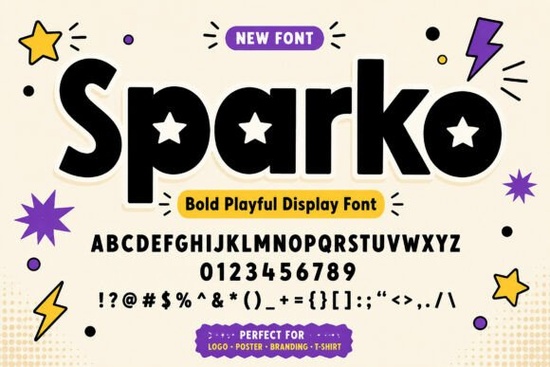
If you're looking for a bold, cheerful display font that works just as well on a candy label as it does on a kids’ T-shirt or Instagram story, Sparko Font is worth your attention. It’s not overly complex or trendy in a way that’ll feel dated next year instead, it balances retro-pop charm with clean, confident shapes and those little star-cut details that give it personality without sacrificing readability.
What kind of projects does Sparko actually work well for?
Sparko shines where visual impact matters most: logos, packaging, posters, and social media graphics. Because it’s chunky but not clunky, and playful but not childish, it fits naturally into branding for toy shops, indie candy makers, or small-batch sticker designers. You’ll also find it holds up beautifully on mugs, book covers, and even vinyl decals especially when you need something that reads clearly at a glance.
It’s the kind of font that helps your product stand out on a crowded shelf or a fast-scrolling feed. Think of it like the friendly, energetic voice behind your brand not shouting, but definitely getting noticed.
How does Sparko compare to other playful display fonts?
Unlike some bolder display fonts that sacrifice legibility for style, Sparko keeps lowercase letters, numbers, and punctuation fully functional so you’re not limited to all-caps headlines. That makes it more versatile than fonts like Sandy Beach Font, which leans more into relaxed summer vibes, or Block Riot Font, which goes heavier on geometric tension. Sparko sits comfortably between them bold enough for impact, soft enough for warmth.
If you’ve used Gardenia Font for elegant hand-lettered moments or Wedding Birthday Font for festive occasions, Sparko offers a different energy one that’s more about movement, fun, and everyday joy than formality or celebration.
Is Sparko easy to use for beginners?
Yes especially if you’re working in Canva, Adobe Illustrator, or Procreate. The full character set includes uppercase and lowercase letters, numbers, punctuation, and symbols, so you won’t hit a wall trying to type a full sentence or add a price tag. No extra ligatures or stylistic alternates to manage means less time troubleshooting and more time designing.
It also scales well: large on a poster, small but still legible on a sticker, and crisp in both print and digital formats. If you've ever tried a playful font only to find it blurry on a mug mockup or hard to kern in a logo, Sparko avoids those common hiccups.
Where does Sparko fit in a broader font collection?
Think of Sparko as your go-to “fun but functional” option the reliable choice when you need energy without chaos. It pairs nicely with serious-but-friendly fonts like Brother Font for contrast (imagine Sparko for the headline, Brother for the subhead), or even alongside script fonts for layered designs say, Sparko for “Jelly Bean Co.” and Gardenia for “Handcrafted Since 2022.”
It’s not trying to do everything. It’s doing one thing very well: giving your words presence, warmth, and a little sparkle.
Before you download Sparko Font, ask yourself:
- Do I need a font that works across packaging, social posts, and merchandise without needing tweaks for each format?
- Will my audience respond better to bold, friendly energy than sleek minimalism or vintage elegance?
- Am I comfortable pairing it with a simpler font for supporting text (since it’s best used for headlines and short phrases)?
If you answered yes to two or more, Sparko is likely a solid addition to your toolkit especially if you design for kids, food, crafts, or lifestyle brands.